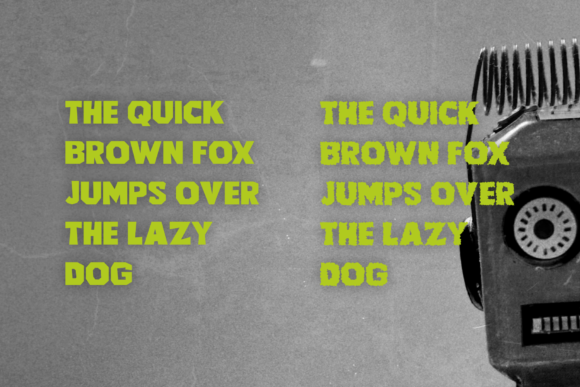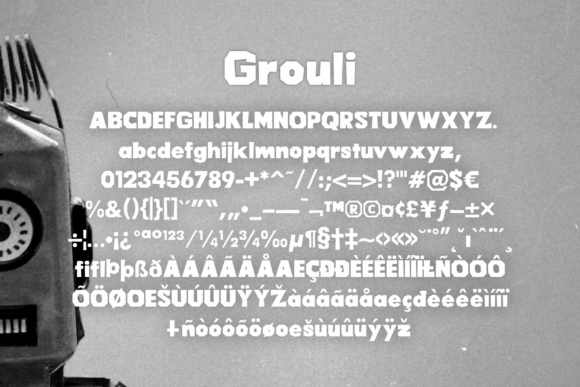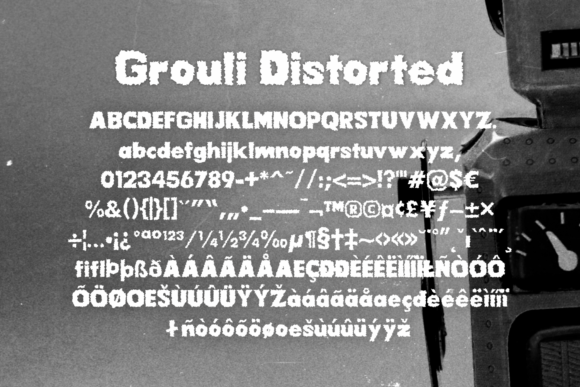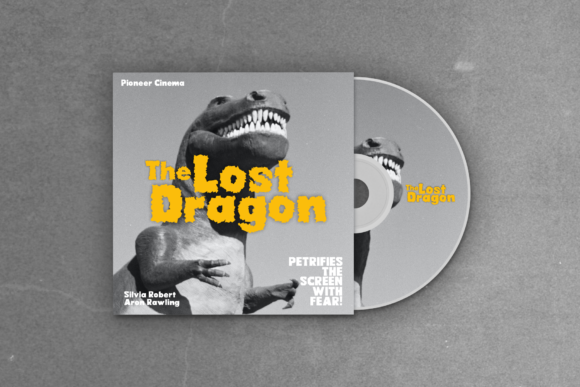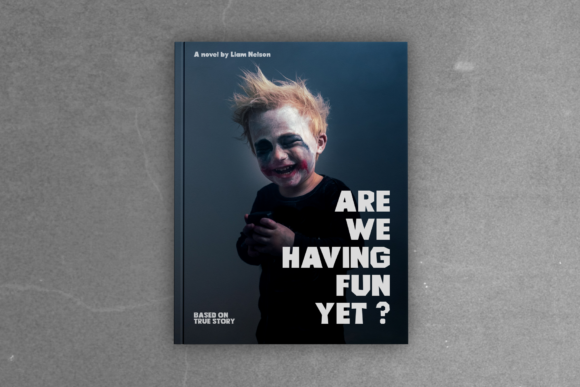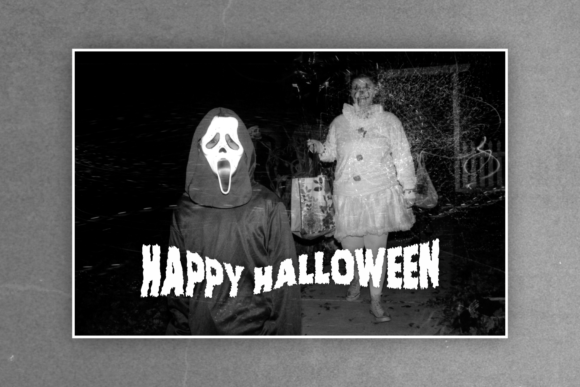
Unlocking the Power of Unconventional Design
Have you ever been working on a project and suddenly, an idea hits you like a ton of bricks? It’s that moment of pure creative genius when everything falls into place, and you know exactly what you want to achieve. For designers, these moments are what drive us to push the boundaries of what’s possible. And that’s exactly what the Grouli Dual Typeface Font is all about – unleashing your creativity and giving your designs a unique, raw edge.
With its bold, big, and chunky design, the Grouli Dual Typeface Font is perfect for simple, non-formal designs that need a bit of grit and personality. Whether you’re working on a vintage scary theme, a kids’ horror project, or a retro-inspired magazine cover, this font is sure to bring your vision to life.
As a designer, you know that the right font can make all the difference between a good design and a great one. That’s why the Grouli Dual Typeface Font is such a valuable tool in your toolkit – it’s a game-changer for anyone looking to add a bit of unconventional flair to their work.
Grouli Dual Typeface Font Key Features
- Character Set: The font includes a comprehensive character set, covering Latin, Cyrillic, and Greek alphabets, as well as a range of punctuation and symbol characters.
- Unique Characteristics: The font features a unique, dual-typeface design, with two distinct styles that can be used together or separately to create a wide range of visual effects.
- Font Style: Grouli Dual Typeface Font includes both a bold and regular style, allowing users to create a range of visual contrast and emphasis.
Grouli Dual Typeface Font Review
Overall, I think the Grouli Dual Typeface Font has a lot of potential. It’s a unique and interesting font that could add some visual interest to a project. ✨ One thing that works well is the way the font has two distinct styles – a bold and a regular – which can be used together to create a fun and dynamic look. ✨ Another strength is the font’s flexibility, it can be used for a variety of projects, from logos to body text.
However, there are some limitations to consider. ⚠️ One of the main issues is the font’s legibility, particularly in smaller sizes. It can be difficult to read, especially for those with vision impairments. ⚠️ Additionally, the font may not be suitable for projects that require a lot of text, as it can be overwhelming to read large blocks of text in the bold style.
- Unique dual-style design
- Flexible and can be used for a variety of projects
- Includes bold and regular styles
Recommendation:
I would recommend the Grouli Dual Typeface Font for projects that require a unique and eye-catching visual element, such as logos or titles. However, it may not be the best choice for projects that require a lot of text or need to be highly legible.
Grouli Dual Typeface Font: A Practical Application Guide
For best results, use Grouli Dual Typeface Font in bold or italic styles to emphasize text.